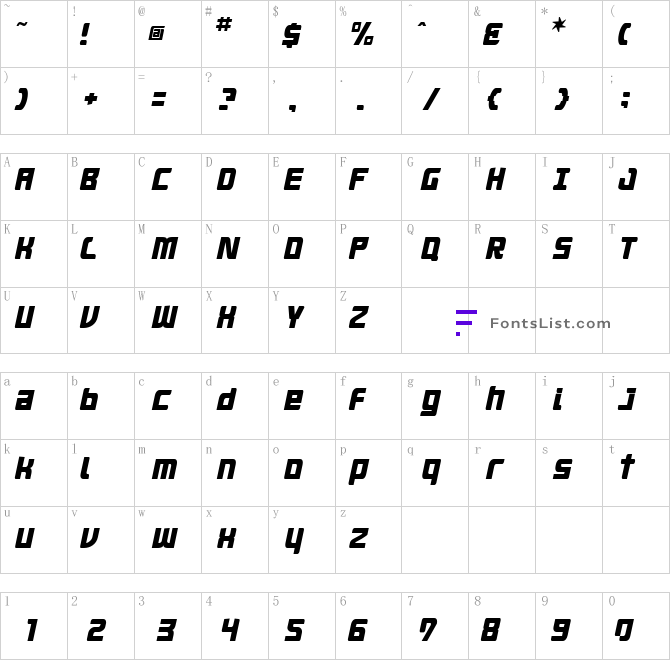
- Font Name:aquasky 2.0 ALP
aquasky-20-ALP-Italic.ttf is a very beautiful artistic font, aquasky-20-ALP-Italic.ttf is widely used in the design and printing of various books and pictures,aquasky-20-ALP-Italic.ttf has a strong visual impact,aquasky-20-ALP-Italic.ttf is a commonly used font in newspapers, magazines and books, and is used in posters, e-commerce Poster design, store design, logo design, font design and other fields.aquasky-20-ALP-Italic.